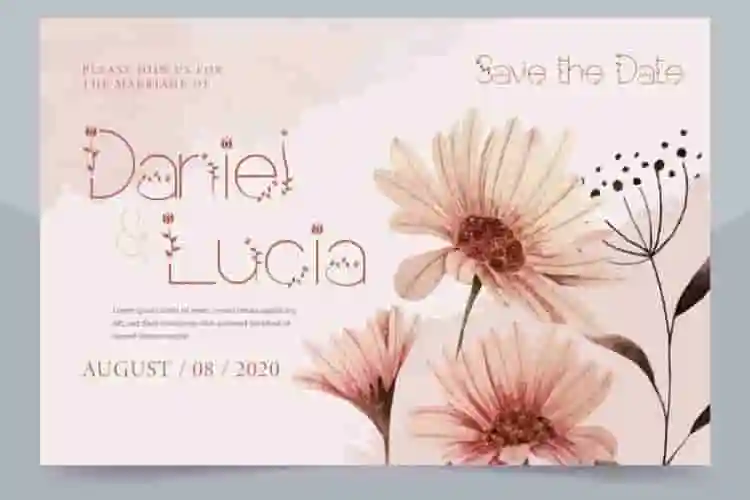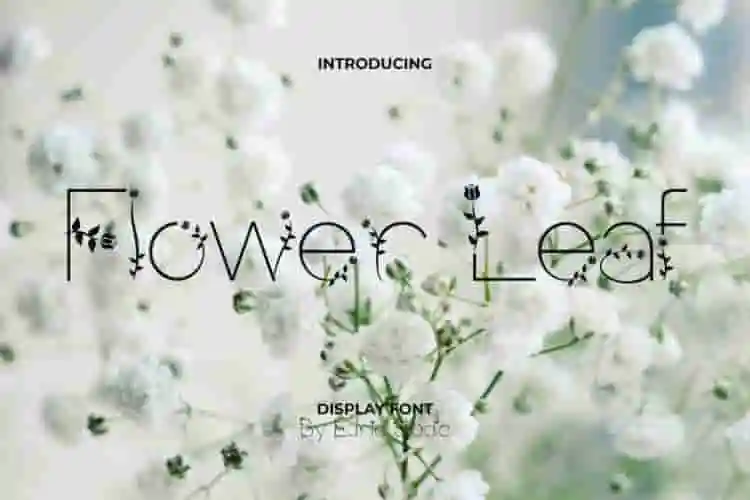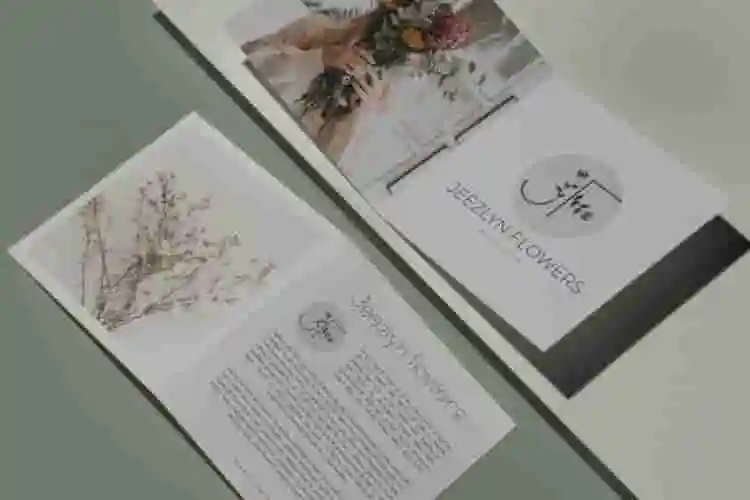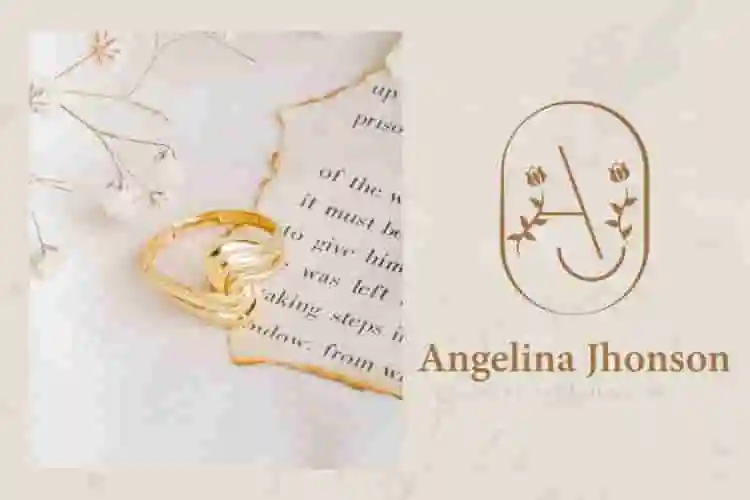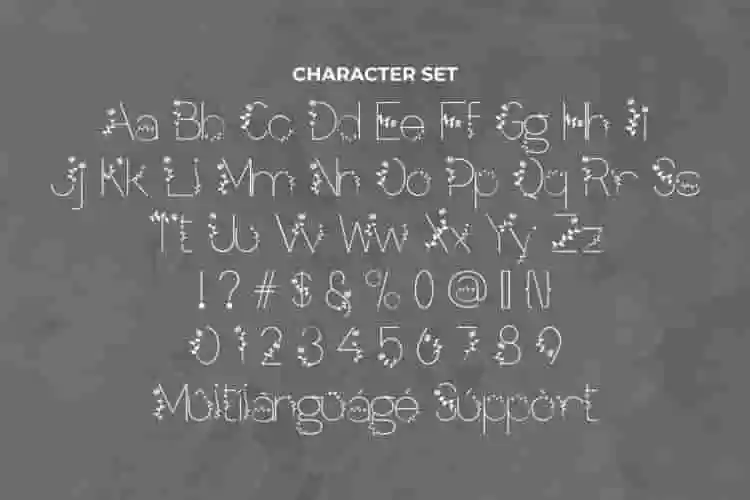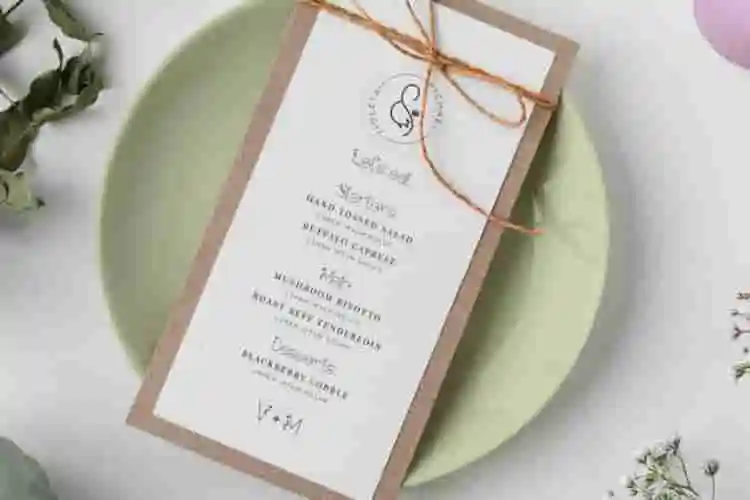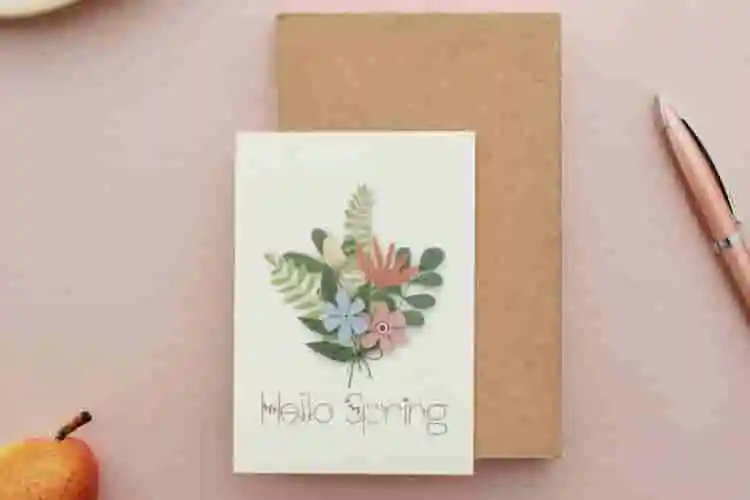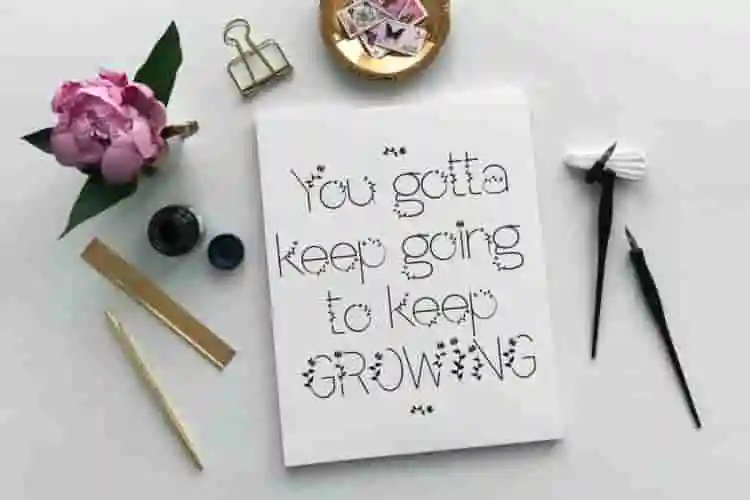
Flower Leaf Display Font
Flower Leaf Font is a decorative font display is inspired by the growing flowers and leafs. Bringing out the feminine side makes it perfect for wedding invitations, merchandise that requires a uniquely floral style.
Bring a natural and artistic vibe to your designs with Flower Leaf Display Font – a creative, hand-drawn typeface inspired by the beauty of nature. With floral and leafy elements integrated into each letter, this font adds a charming, botanical feel to every project.
Perfect for logo design, eco-friendly branding, packaging, wedding invites, greeting cards, posters, children’s books, and more – Flower Leaf Display Font is designed to capture attention while radiating positivity and creativity.